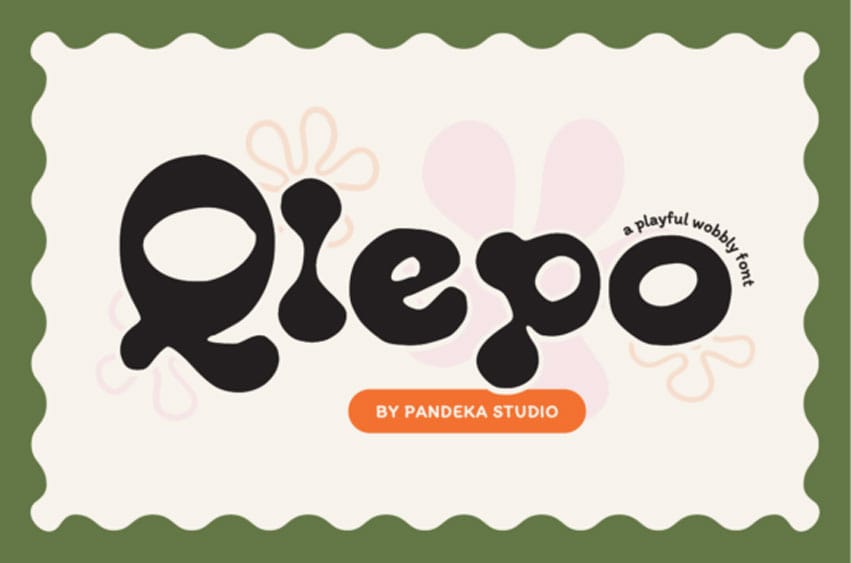
Qlepo Font is a groovy and playful display font that brings the spirit of retro psychedelia into modern design. With bubbly shapes, quirky curves, and a bold personality, Qlepo is perfect for posters, packaging, music artwork, children’s products, and any project that needs a burst of joy and fun.
Even with just a single Regular style, Qlepo offers expressive versatility — from vibrant branding to funky social media graphics. It comes with uppercase and lowercase letters, numbers, punctuation, and multilingual support, making it a fun choice for global creative projects.